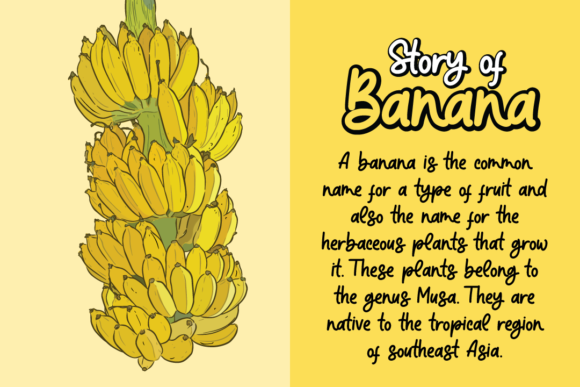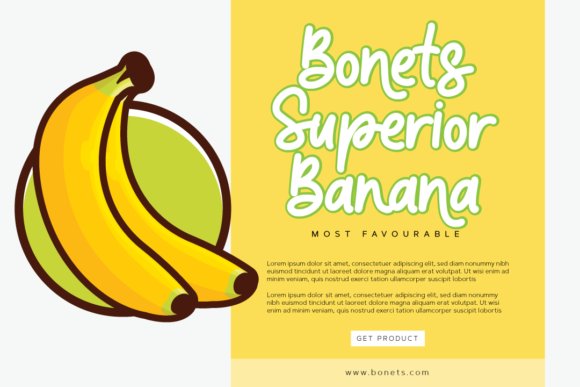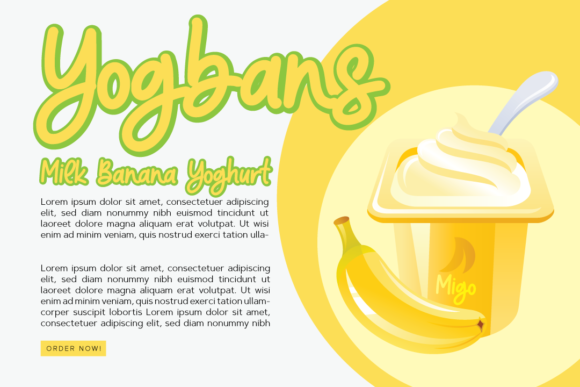
About Banana Super Font
Banana Super is a sweet and friendly handwritten font. Its natural and unique style makes it incredibly fitting to a large pool of designs.